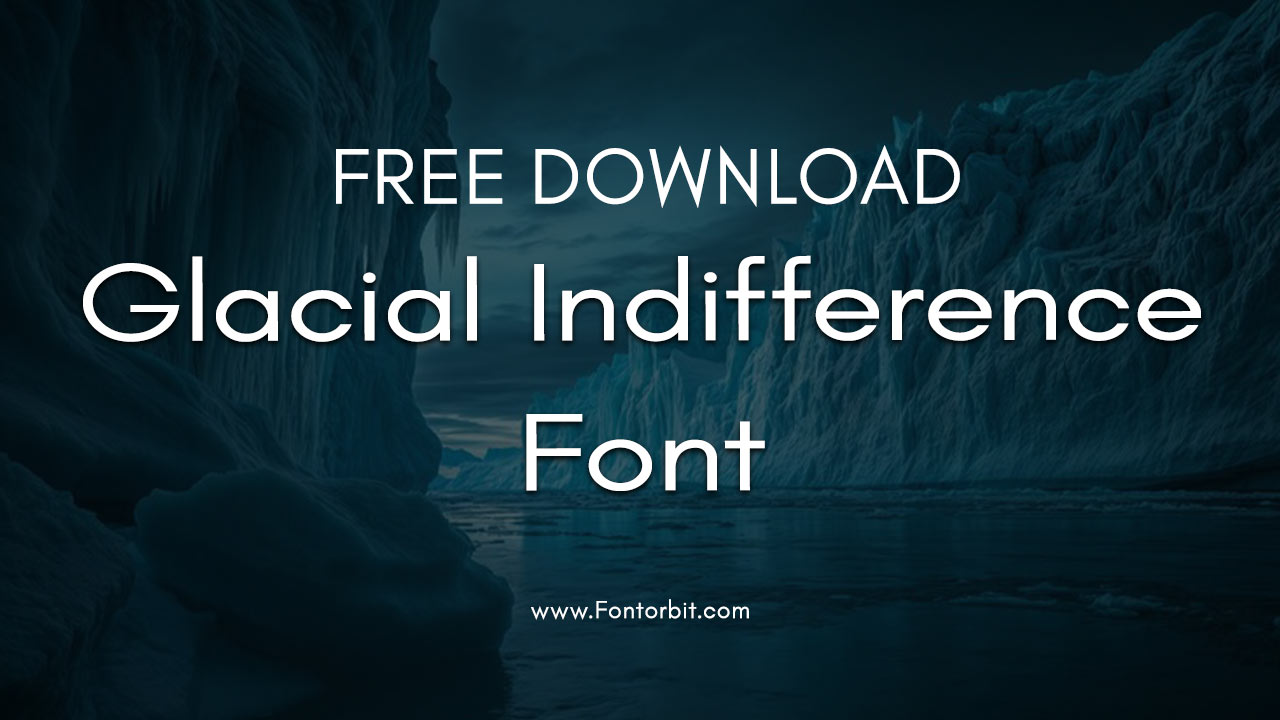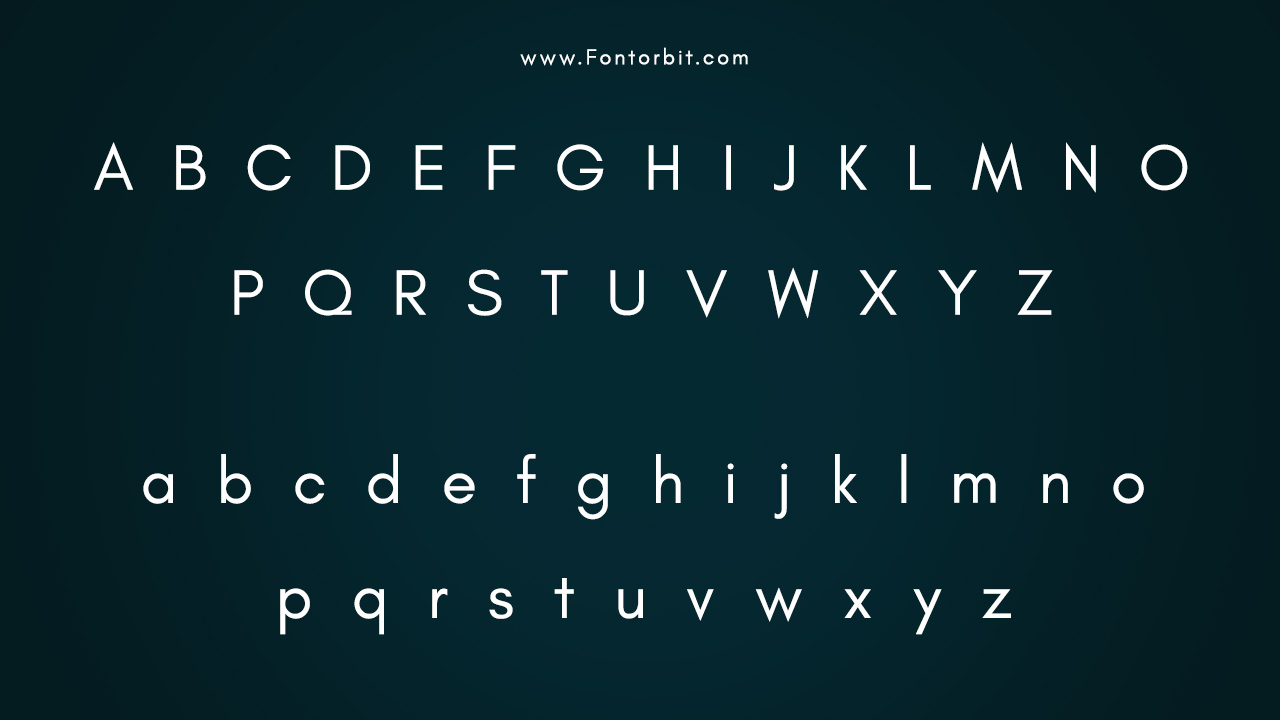
Glacial Indifference is a geometric sans serif typeface that has grown in popularity for its clean, minimalistic style. Created by Hanken Design Co., this free font can be used for personal and commercial projects. Released in 2015, it quickly gained traction for its versatility and modern look.
The Glacial Indifference Font Family Includes
Glacial Indifference is renowned for its simple, modern design, making it highly suitable for various applications. It falls under the geometric sans serif classification, emphasizing clarity, structure, and balance. The font includes:
a. Glacial Indifference Regular
b. Glacial Indifference Bold
This font is perfect for projects requiring a clean, neutral look while maintaining a touch of modernity and professionalism. Its simple, geometric lines make it ideal for digital and print design, offering a timeless aesthetic.
Glacial Indifference’s sleek and minimal design makes it adaptable for various projects. The font is particularly effective for projects that need a professional and contemporary touch.
Its geometric nature makes it well-suited for designs where clarity and precision are essential. With over 1 million downloads, Glacial Indifference continues to be a top choice for designers worldwide. Some of the most common uses include:
- logos
- films
- TV shows
- video games
- books
Since its release in 2015, Glacial Indifference has become a favorite in the design community due to its timeless and versatile nature. This open-source font offers a clean and modern digital and print media solution, ensuring it remains relevant in contemporary design projects. Whether used for web design, marketing, or branding, Glacial Indifference continues to make a lasting impression.
1.What Is Glacial Indifference?
Glacial Indifference is a geometric sans serif typeface designed by Hanken Design Co. It is known for its clean, minimalist design and is available for free download for personal and commercial use.
3.What Are The Popular Uses Of Glacial Indifference?
Due to its neutral and modern design, Glacial Indifference is commonly used in web design, corporate branding, presentations, and marketing materials. It’s also popular for invitations, product packaging, and social media graphics.
5.Why Is Glacial Indifference Popular?
Glacial Indifference is popular because of its versatility, legibility, and modern design. Its geometric and minimalistic nature makes it a great choice for many design projects, ensuring it remains a staple in the design world.